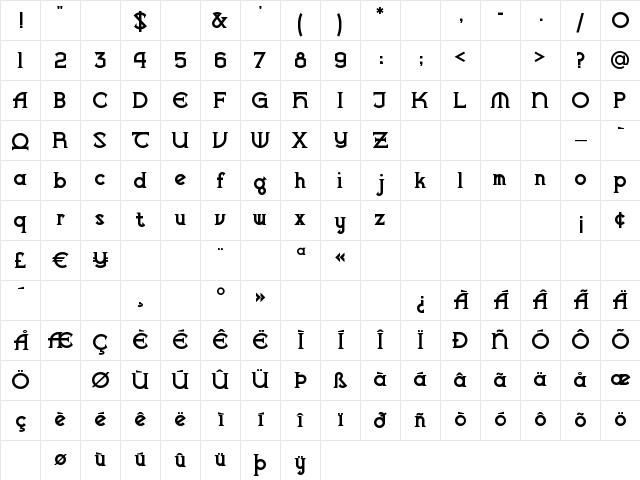
Complete VlaanderenChiseled Regular glyph index. Displaying only characters natively supported by VlaanderenChiseled Regular font.
VlaanderenChiseled is a composed and adaptable typeface that performs quietly and consistently across a wide range of design contexts.